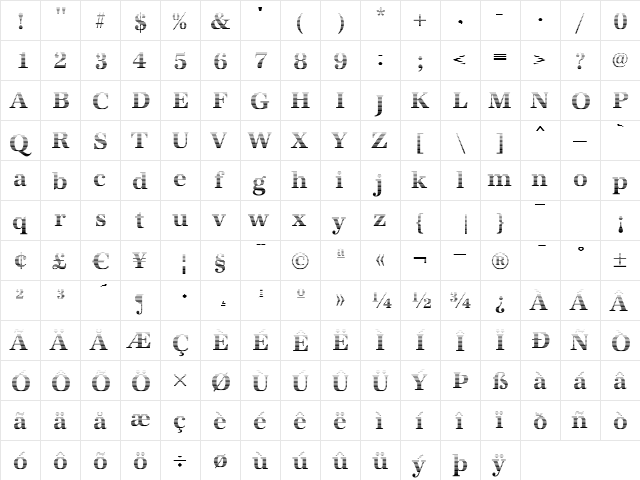
IrisBeckerGradient Bold Font Preview
IrisBeckerGradient Bold
IrisBeckerGradient Bold Font Details
Design Context for IrisBeckerGradient Typeface
IrisBeckerGradient offers clean, dependable letterforms without strong stylistic allegiance, making it a practical choice for designers who need flexibility. The heavy weight commands attention and anchors typographic hierarchies.